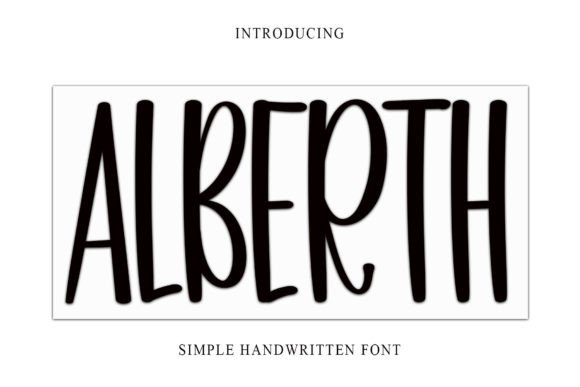
Feast your eyes upon Alberth Font, a script font born from the union of elegance and magic. Its enchanting aura is sure to leave you spellbound. Whether you seek fonts for your Instagram endeavors or calligraphy scripts for personal projects, Alberth Font will transform your creative visions into breathtaking works of art.
Prepare to be captivated by its distinct and timeless style, a style that will elevate your designs to new heights of brilliance. Its graceful curves and sweeping strokes exude an effortless sophistication, ensuring that your designs stand out from the crowd.
With Alberth Font, the possibilities are endless. Create logos that radiate elegance, invitations that evoke a sense of timeless romance, and social media posts that capture the attention of your audience. Let your imagination soar and witness the wonders that Alberth Font can bring to life.
So, embrace the magic of Alberth Font and embark on a creative journey like no other. Let your designs blossom with beauty, and let your imagination run wild. The world of design awaits your artistry!